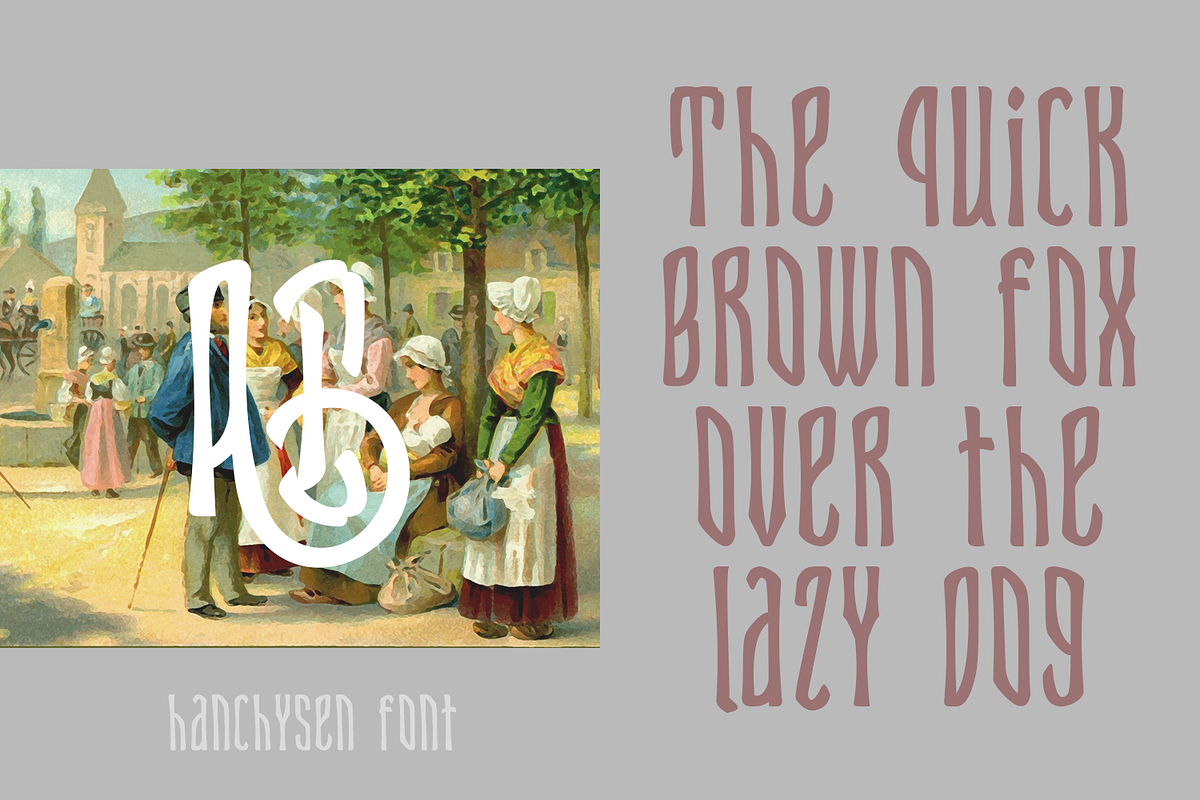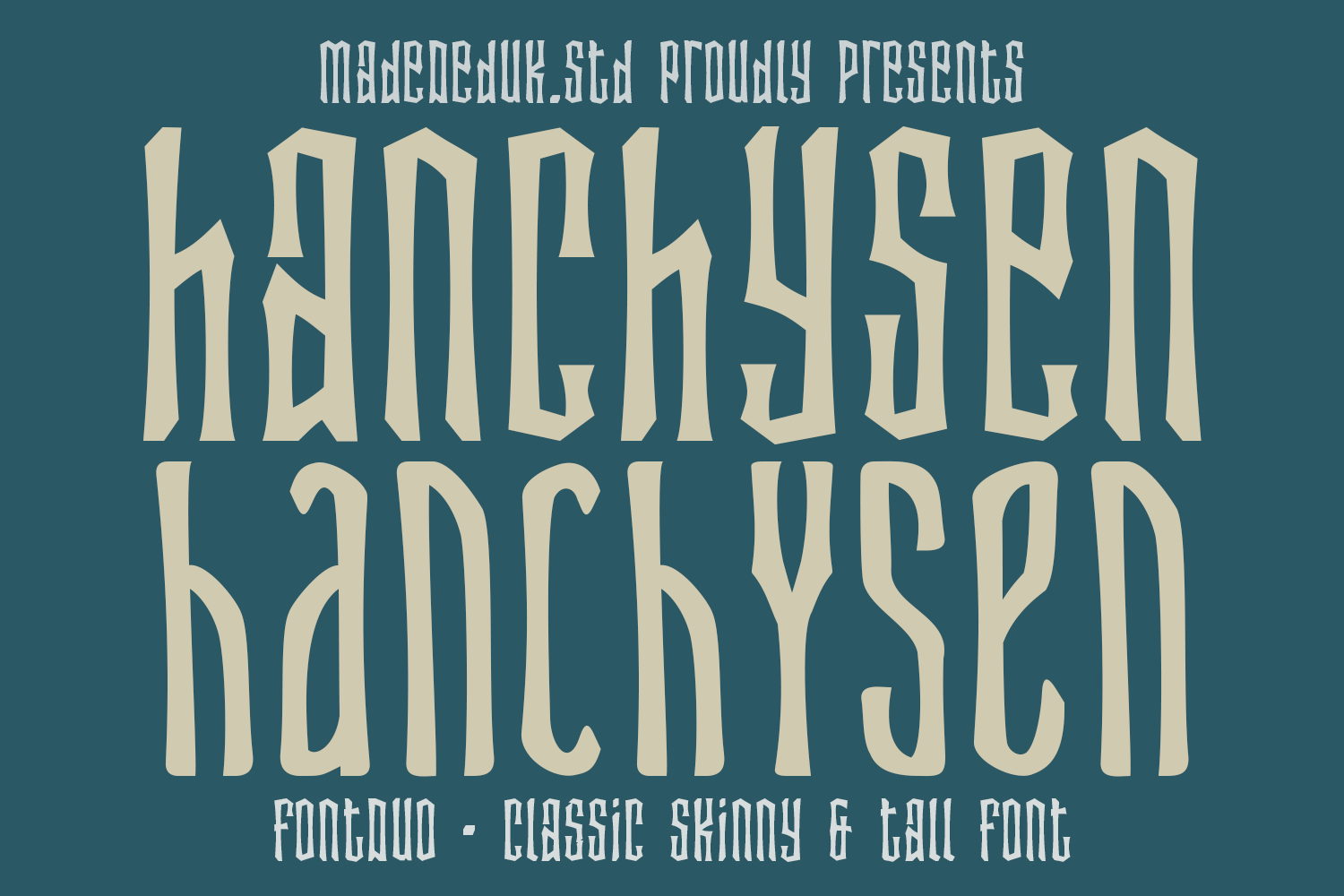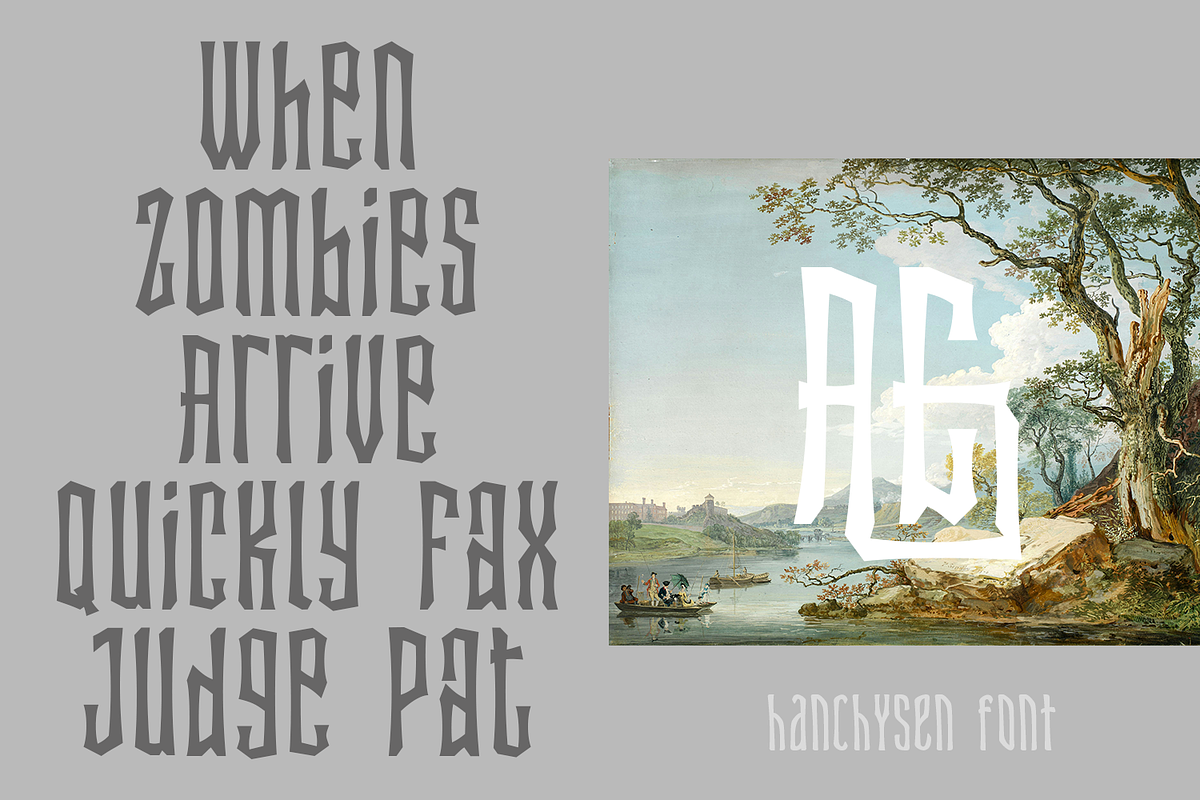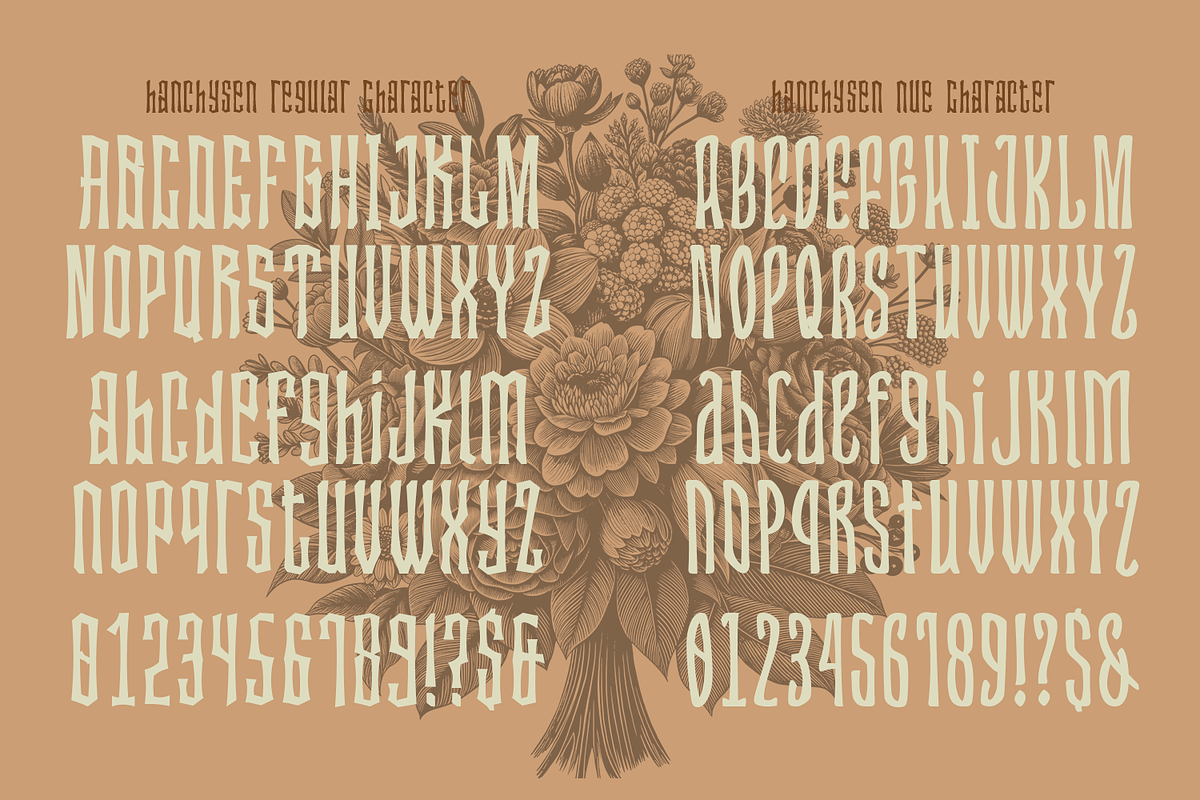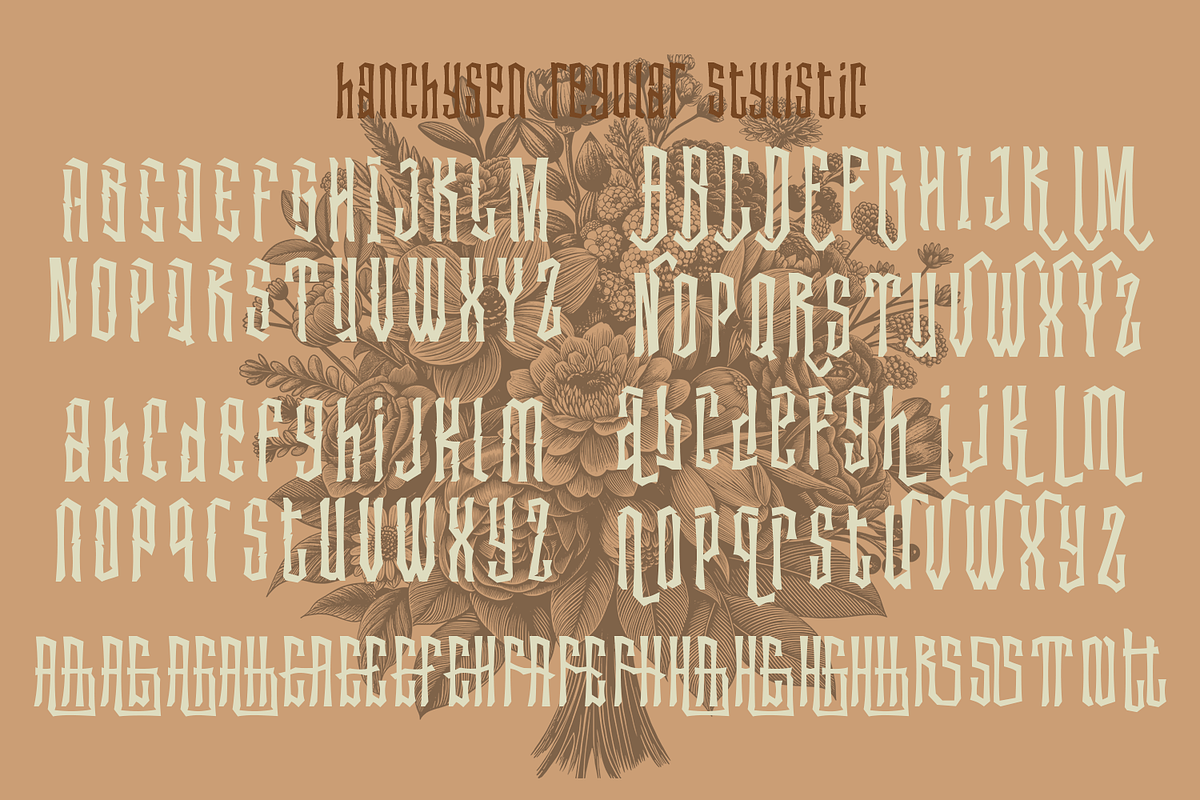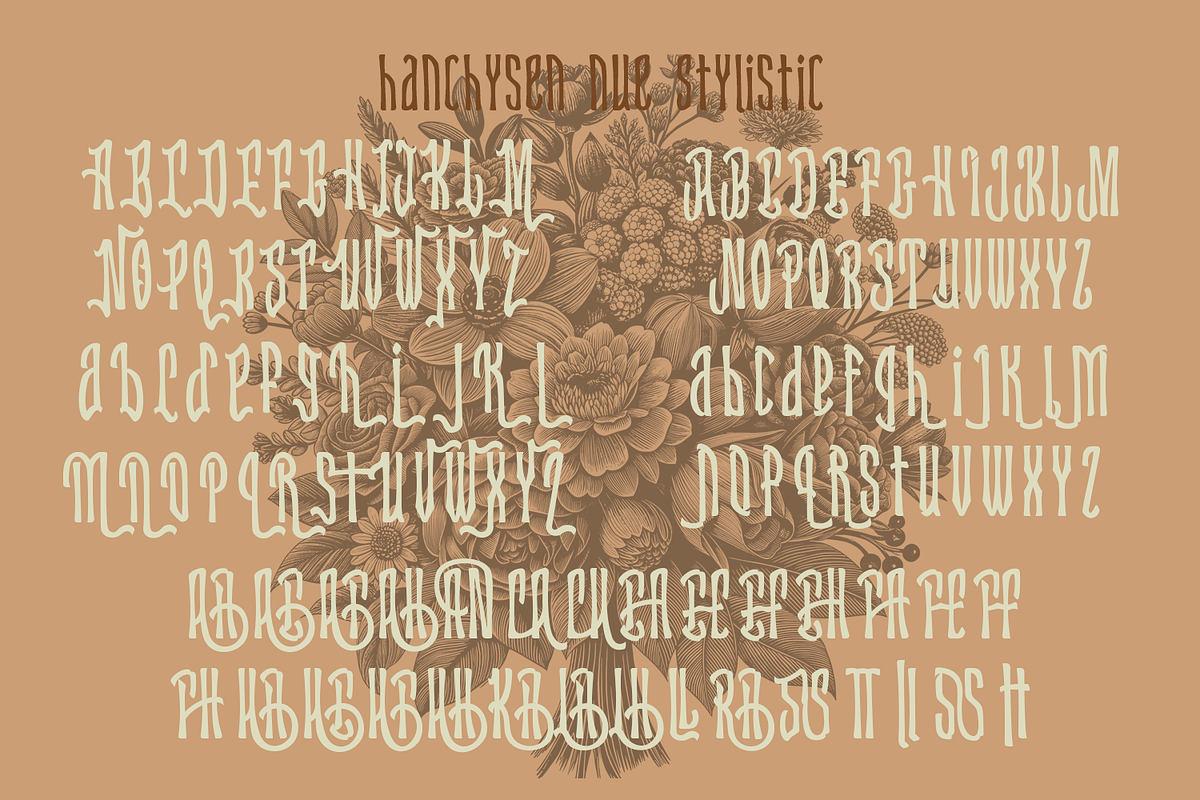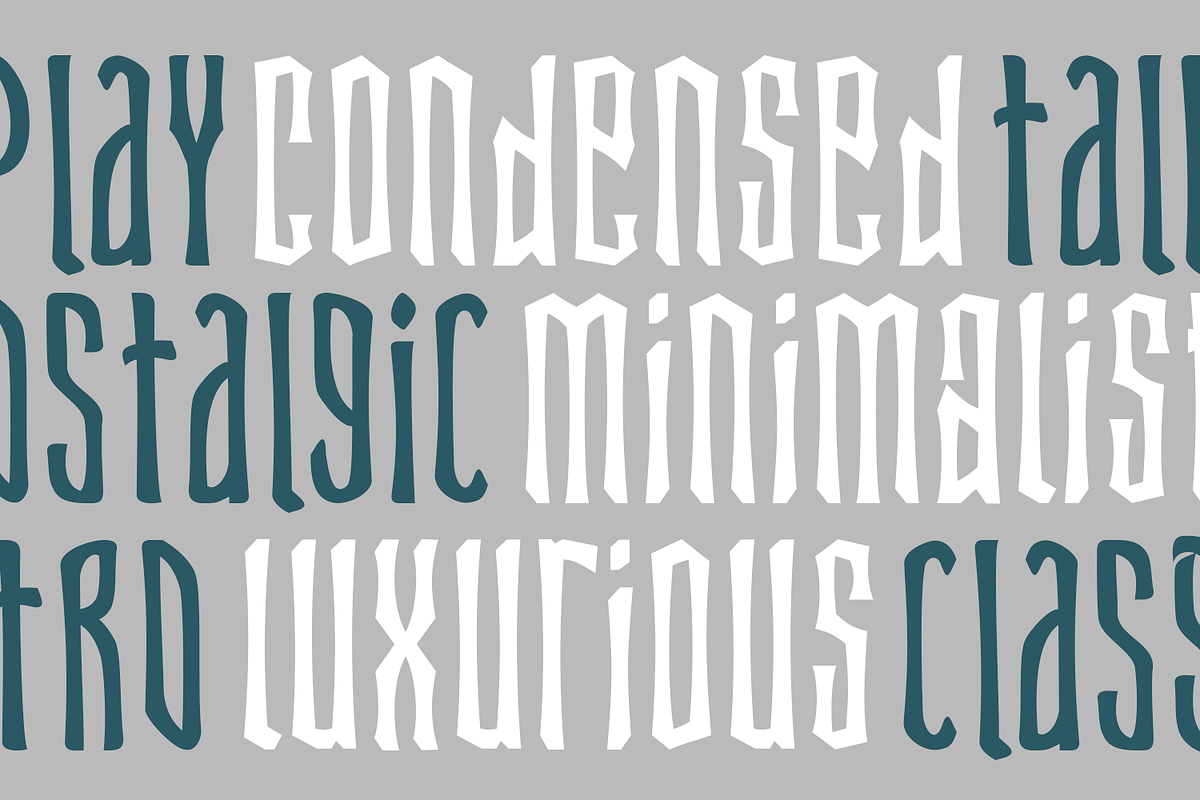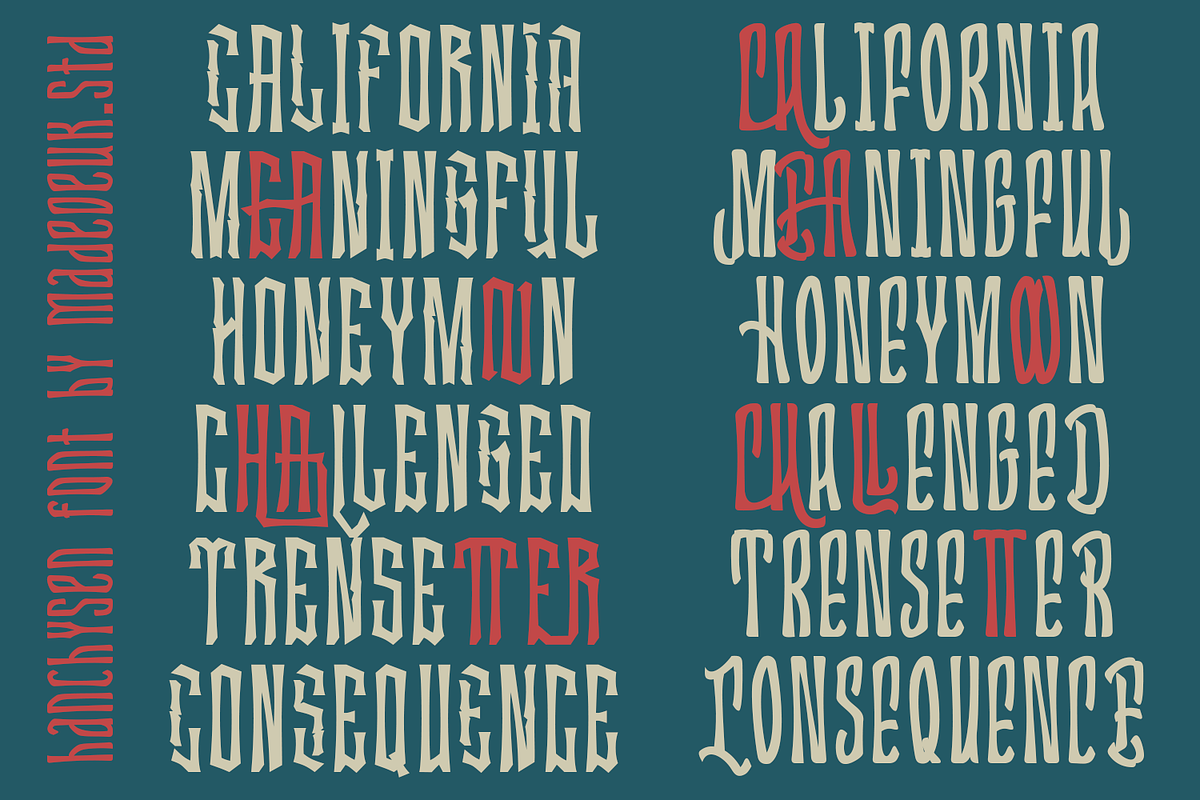
Hanchysen Font Duo
Hanchysen is a classic skinny and tall font duo with dramatic verticality, high contrast strokes, from high-fashion headlines layouts. A sleek and sharply styled ultra-condensed font crafted for standout display work. This font fits perfectly in logos, contemporary posters, album art, and lifestyle driven branding. Whether you’re creating digital content or printed materials.